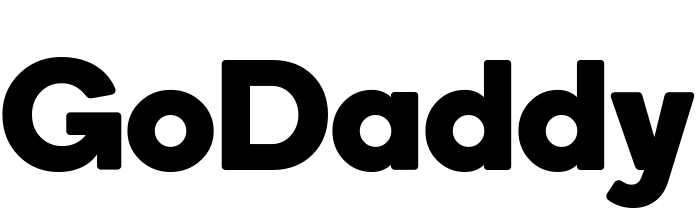
GoDaddy Font
Fonts in UseGoDaddy is a web hosting company that provides website hosting, domain registration, and website building services.
In 2016, GoDaddy underwent a significant logo redesign that switched to a bold, rounded sans-serif font called Boing Bold, created by British font designer Henrik Kubel. The new design retained the icon featuring "The Go Daddy Guy" - a man with green sunglasses, orange wavy hair, and a star on his head.
The original logo, which was designed using a commercial font called Good Dog Plain by Ethan Paul Dunham, is no longer in use.